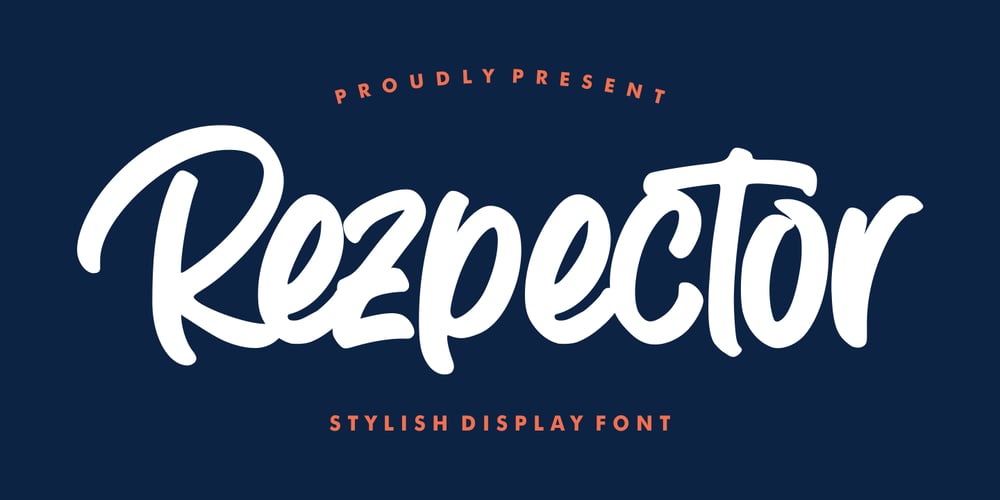
Rezpector
Rezpector font
Rezpector Font Family was designed by Risman Ginarwan and published by Garisman Studio. Rezpector contains 8 styles and family package options. Introducing Rezpector – Stylish Display FontRezpector combines attractive curves with a fresh urban edge; delivering a stylish script which is guaranteed to add an eye-catching appeal to your logo designs, brand imagery, quotes, product packaging, merchandise, social media posts and more. Uppercase & Lowercase letters Numbers & Punctuation Ligature Simple installation Work for PC and MAC PUA Encoded Open